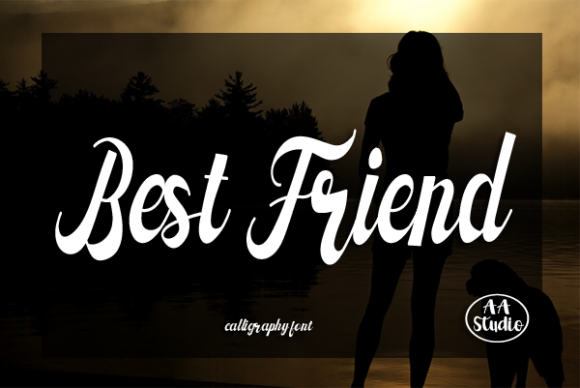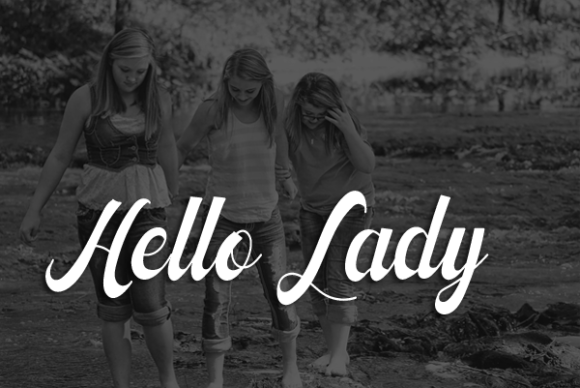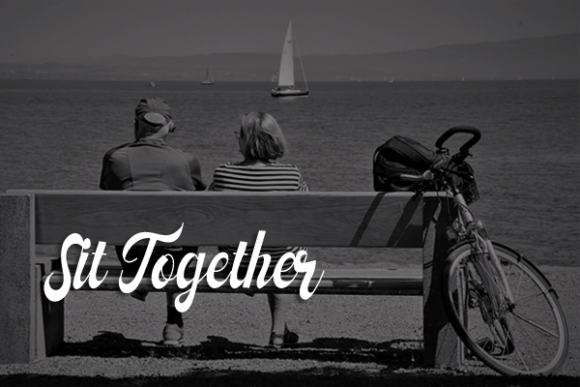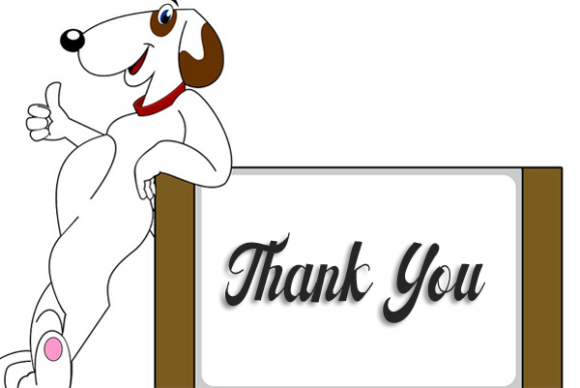
About Best Friend Font
Best FriendĀ is an enchanting handwritten font. This versatile script font has a wide spectrum of applications ranging from greeting cards to headlines and is guaranteed to add a romantic feel to your next project.